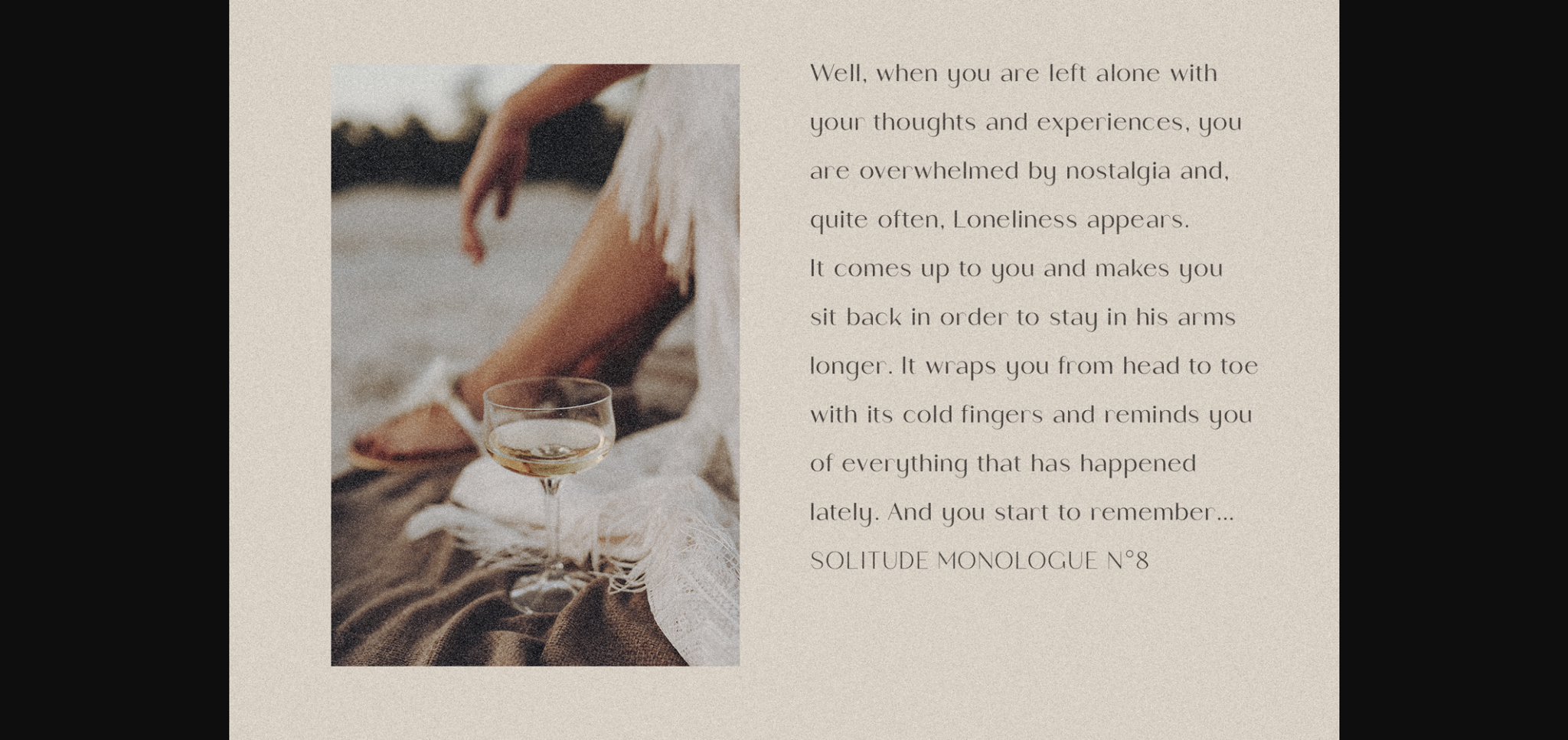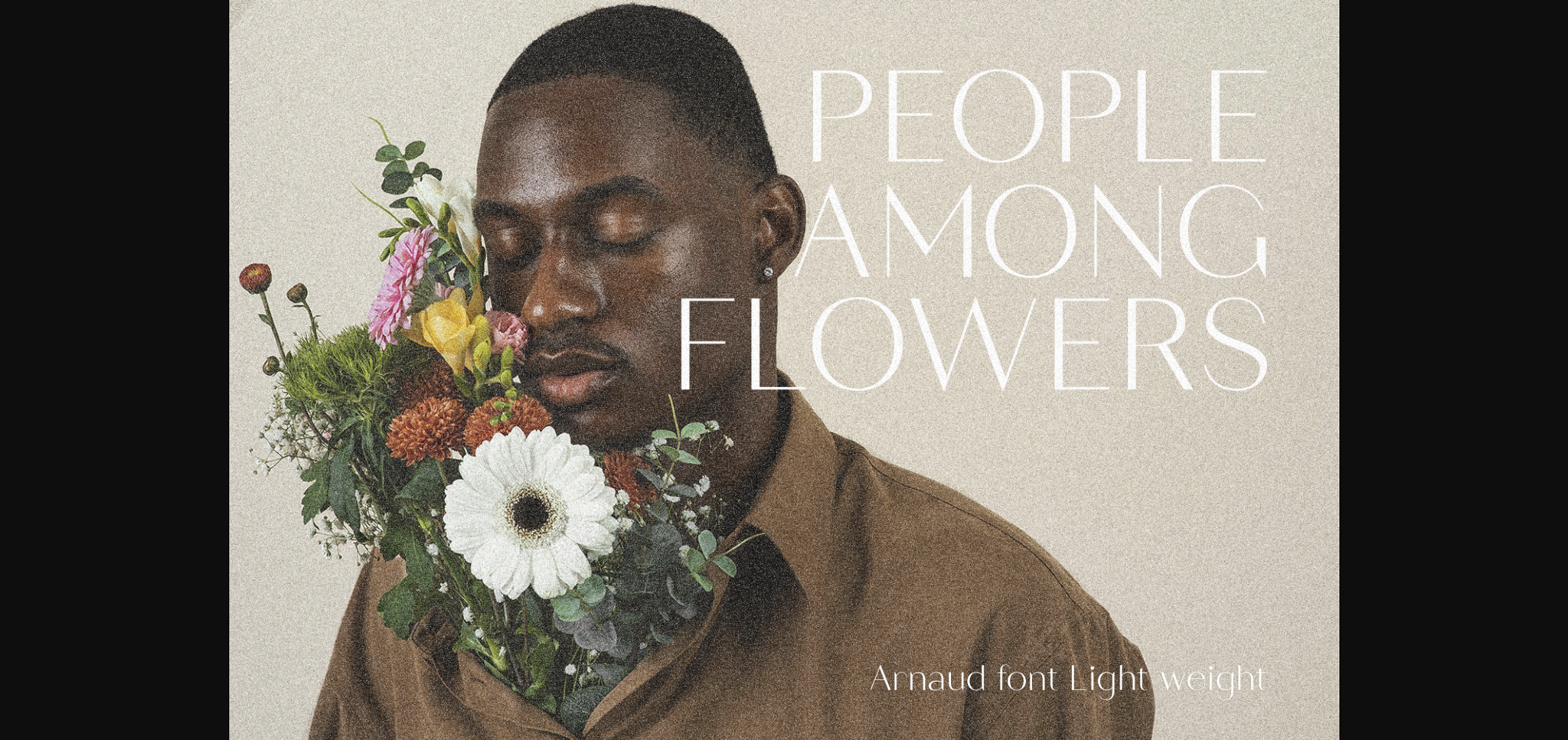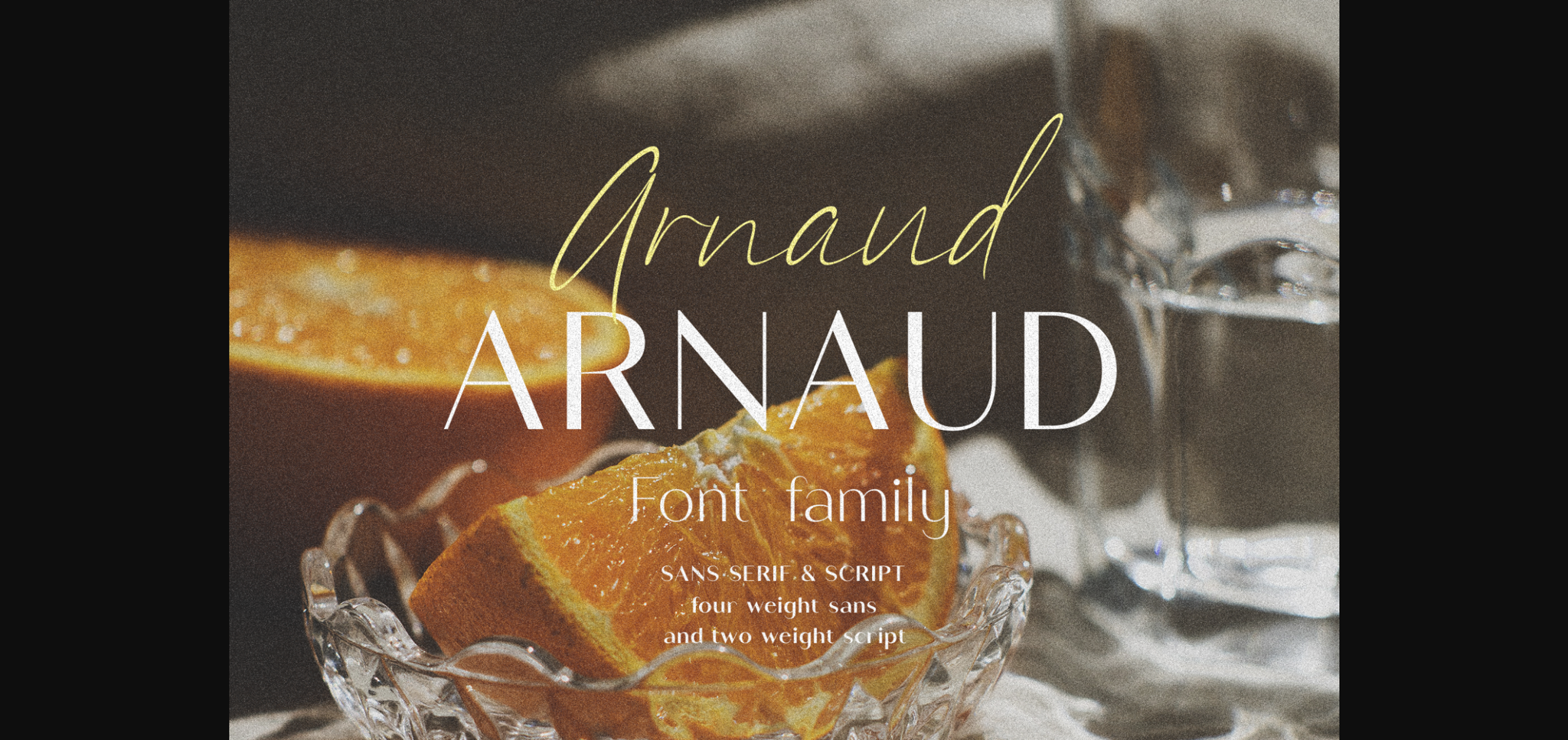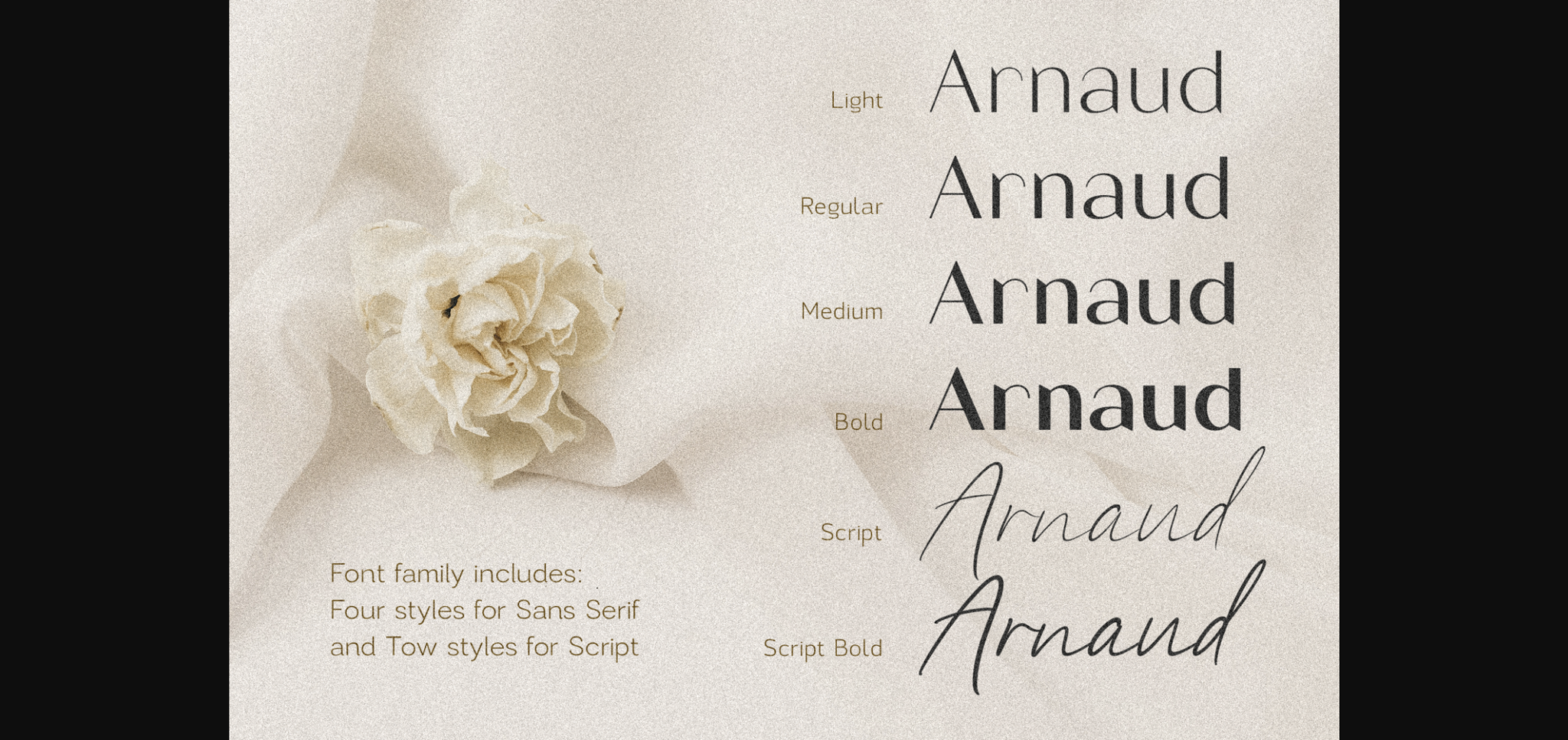
About Arnaud Duo Font
Arnaud is a stylish and classy font duo that epitomizes sophistication and elegance. With clean lines and balanced proportions, it exudes professionalism and modernity. Perfect for branding, editorial design, and corporate projects, Arnaud adds a touch of refinement and class to any typographic composition.